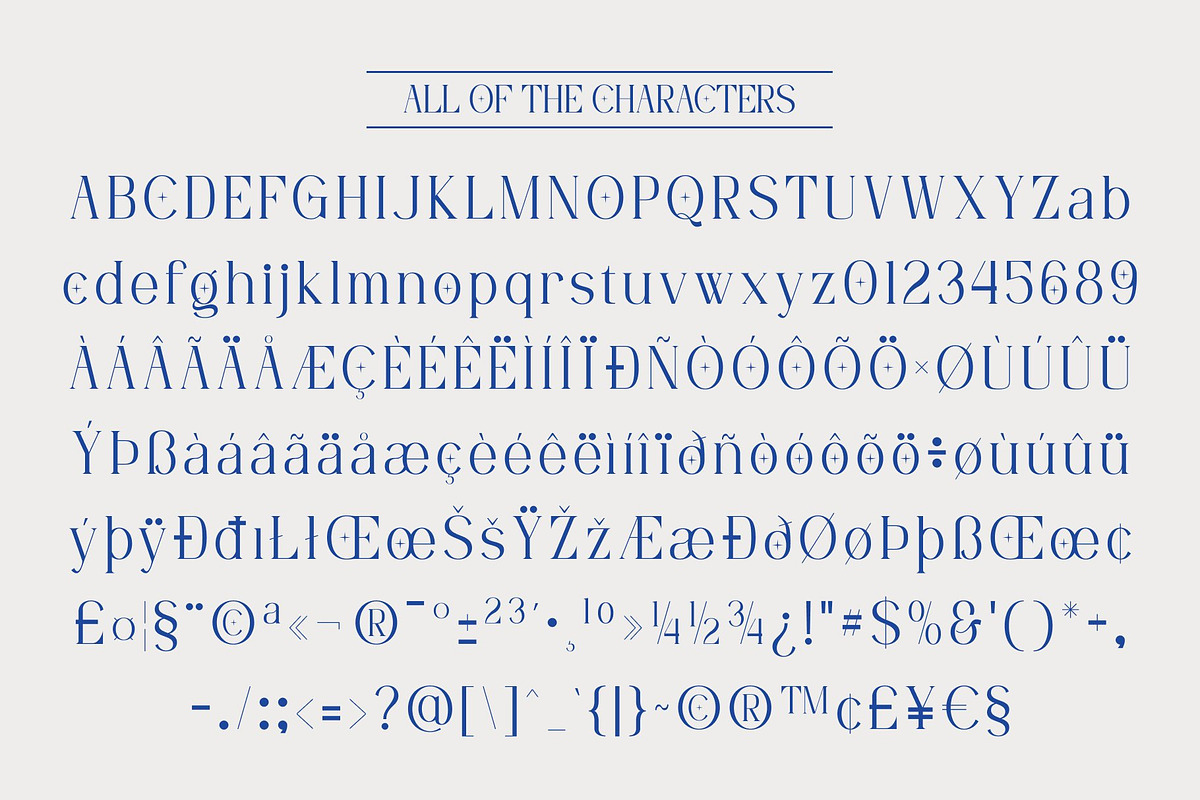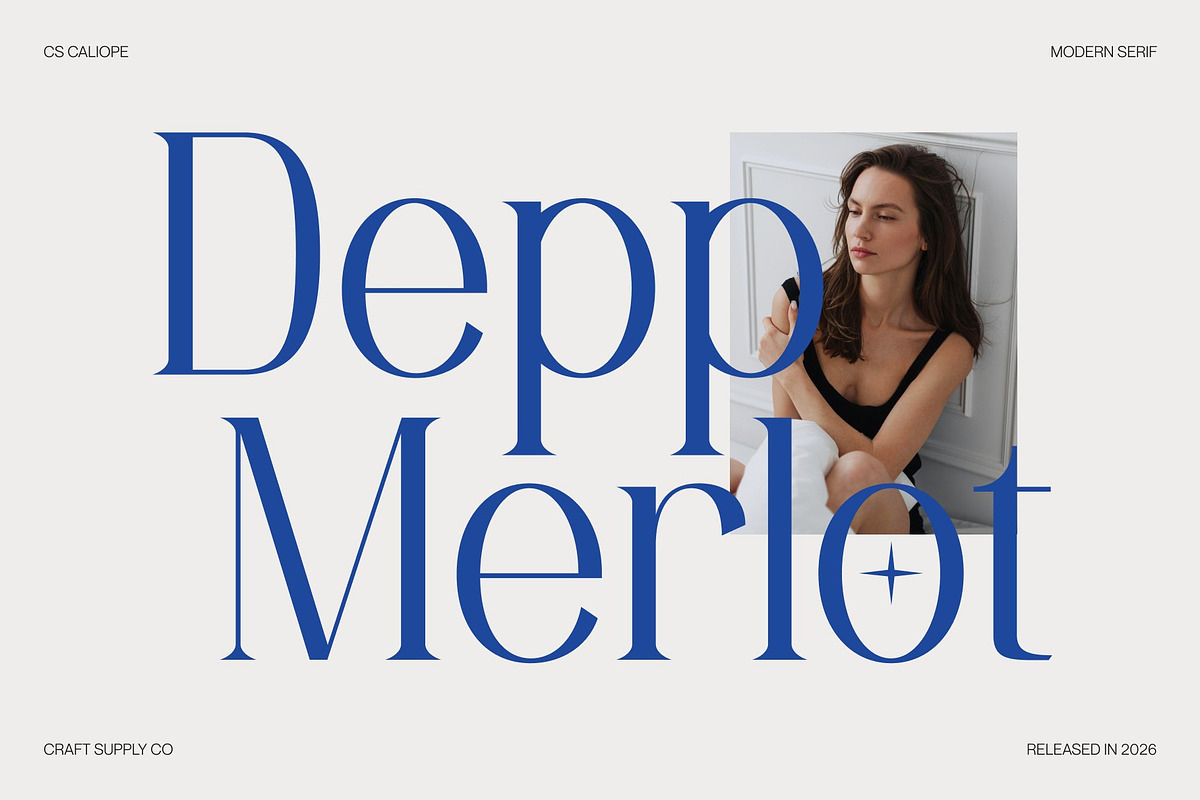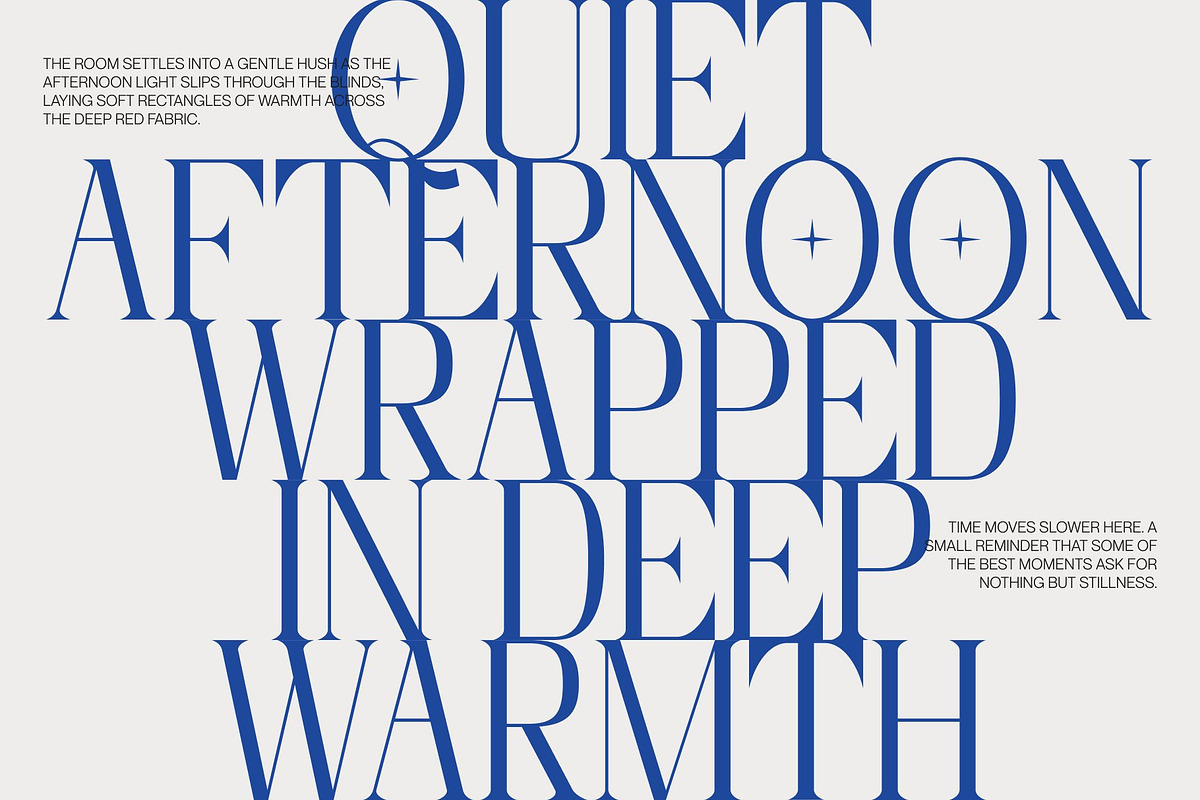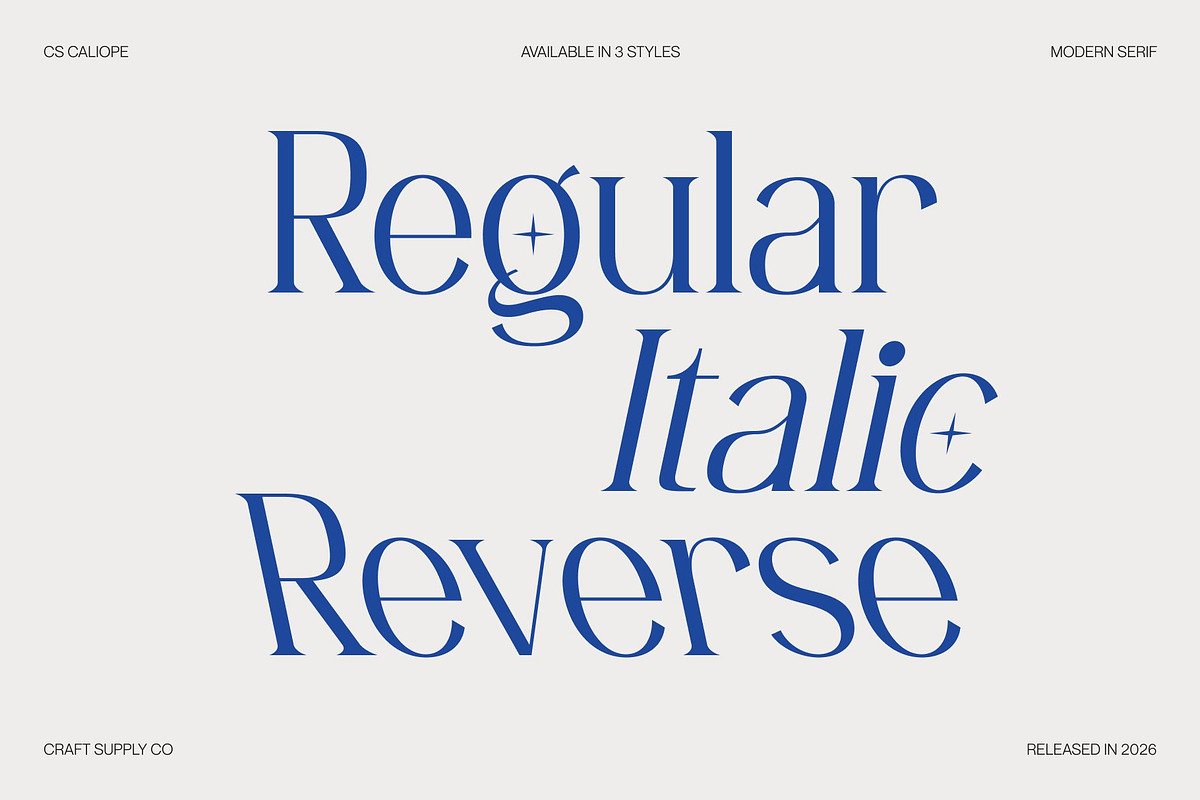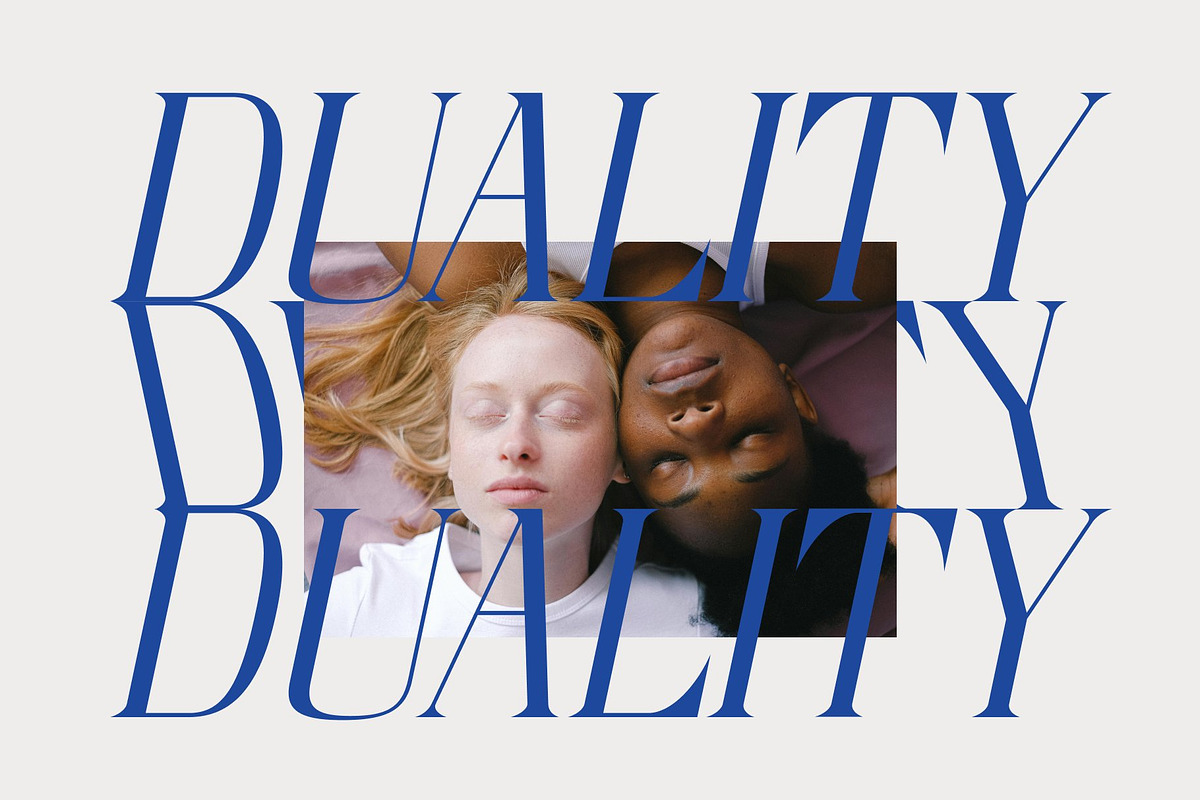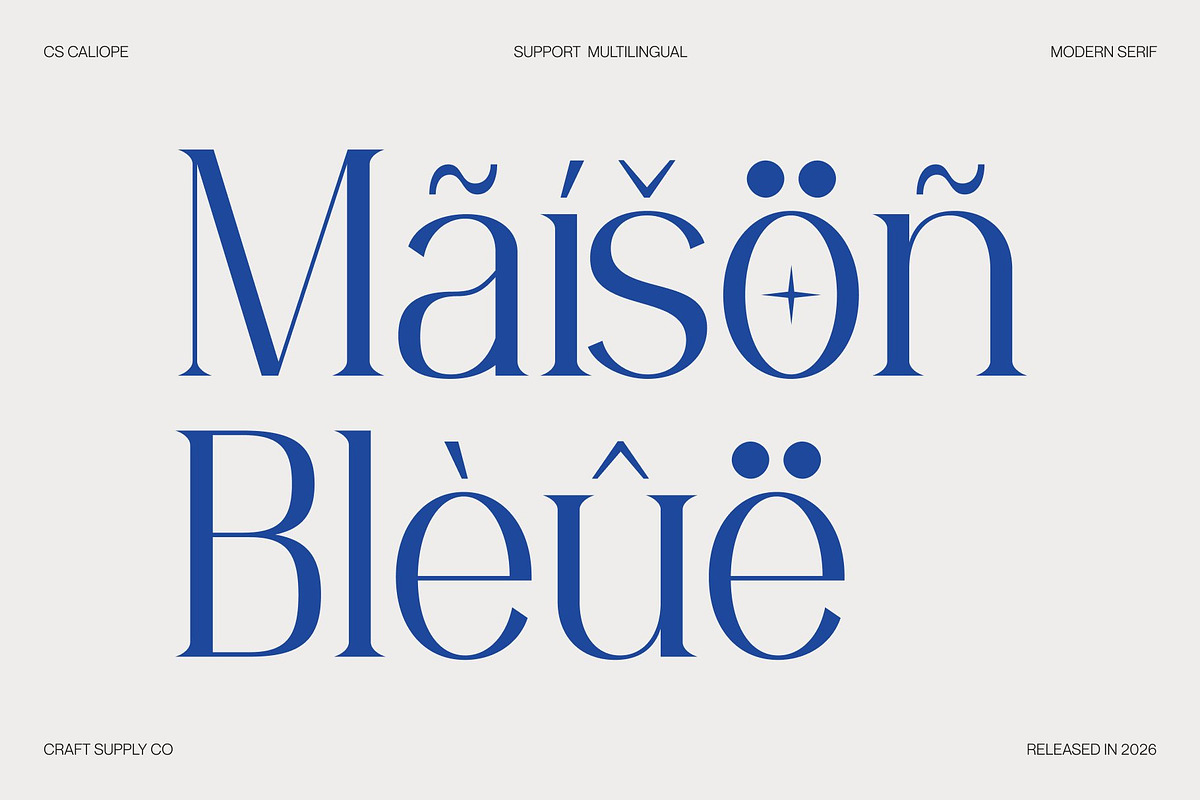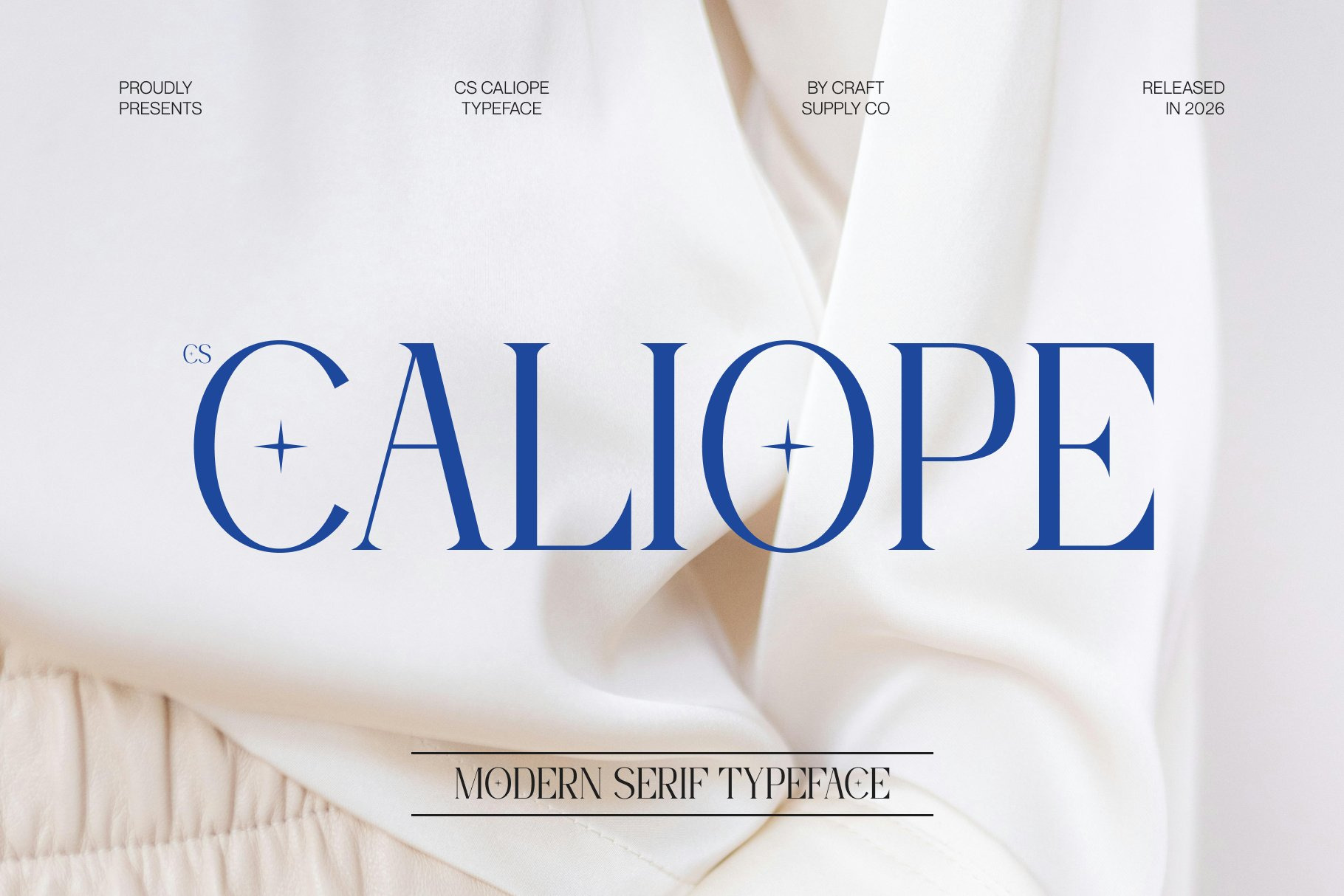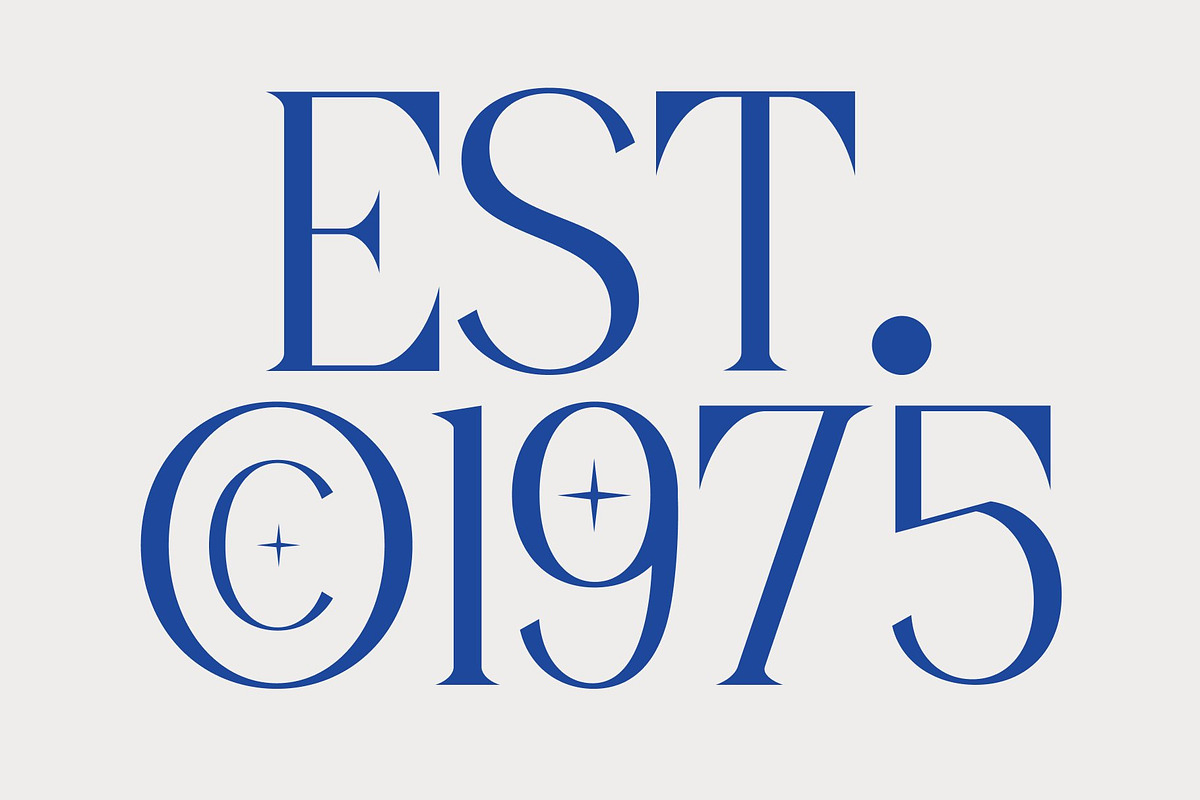
CS Caliope – Aesthetic Font
CS Caliope – Modern Serif with Elongated Elegance
Modern Serif with Minimal Style This is a modern serif font that embraces minimalism while delivering a stylish and refined appearance. Designed with clean construction and balanced proportions, it communicates clarity and confidence through simplicity. Its understated design allows the typography to feel modern and elegant without unnecessary ornamentation.
Elongated Forms with Elegant Aesthetic The elongated letterforms of this font create a graceful vertical rhythm that enhances its elegant character. These proportions add a sense of sophistication and visual flow, making text appear poised and aesthetically pleasing. The refined serifs and smooth transitions elevate the overall look, giving the font a fashion-forward and contemporary appeal.
Clean Structure with Contemporary Charm This font balances modern structure with subtle expressive details, resulting in a font that feels both minimal and artistic. Its clean lines ensure readability, while its elongated elegance adds personality and charm. This combination makes it ideal for creative layouts that demand refinement and style.
Ideal for Editorial and Creative Design Perfect for editorial spreads, branding, and creative projects, this font performs beautifully in headlines, titles, and refined typography. Whether used in magazines, brand identities, or artistic compositions, it brings an elegant, aesthetic, and modern presence that enhances visual storytelling with confidence and grace.